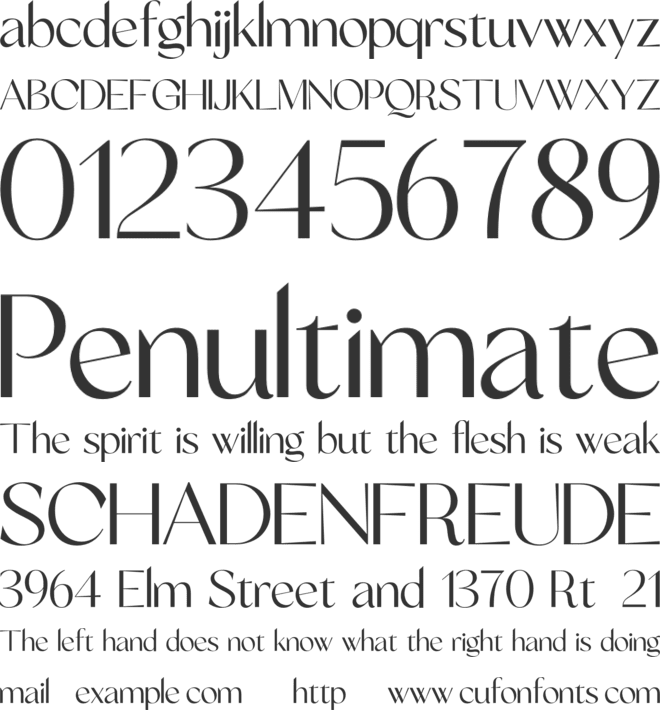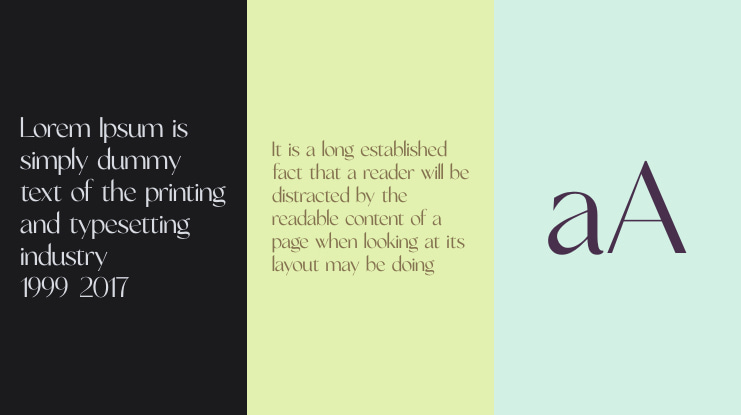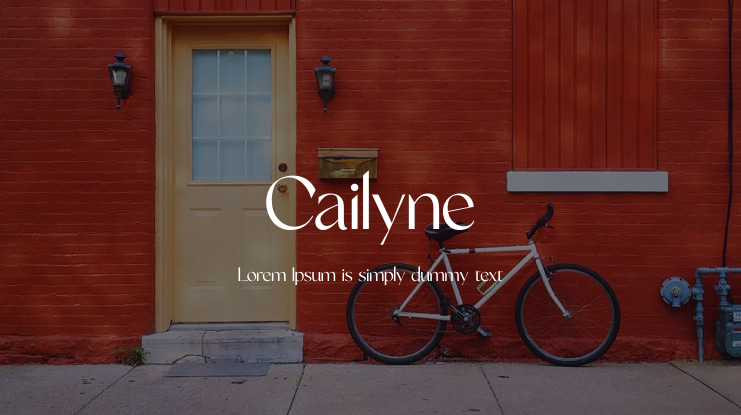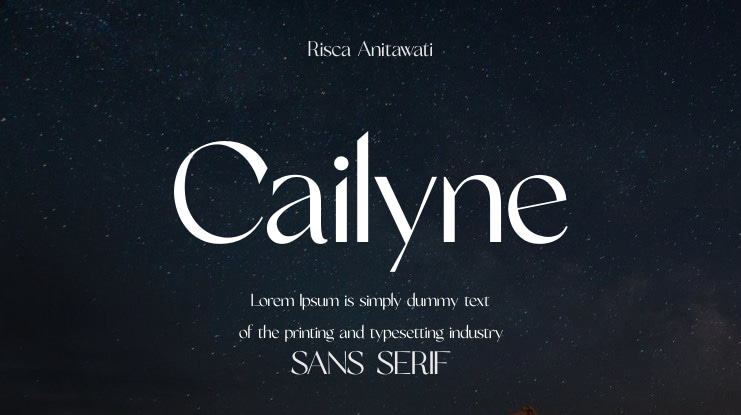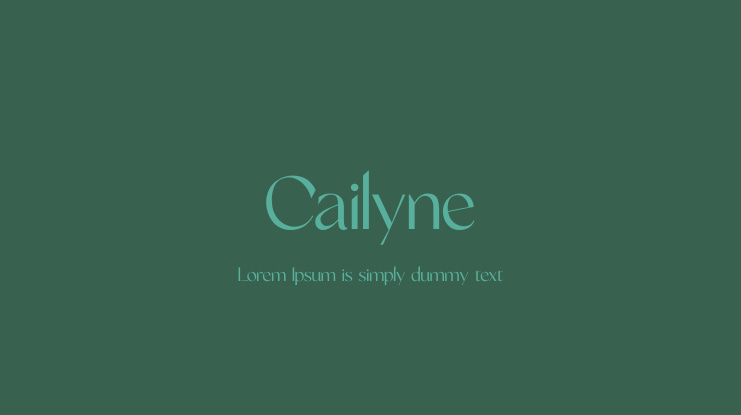
Cailyne Font Family
Introducing, Cailyne Typeface. A modern and elegant San serif with an italic version. It is designed with a touch of modern look and feel, making it ideal for projects that demand a touch of class.
This type of font is perfectly made to be applied especially in logos, headlines, signage, and the other various formal forms such as invitations, labels, logos, magazines, books, greeting/wedding cards, packaging, fashion, makeup, stationery, novels, labels or any advertising purpose.